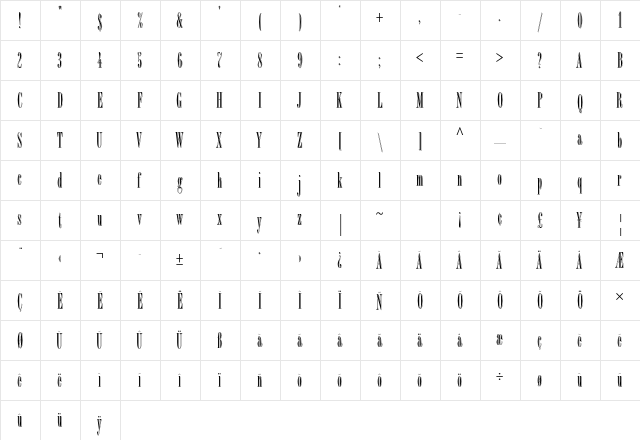
Bordeaux Display Std Regular
| Designer | David Quay |
Design Context for Bordeaux Display Std Typeface
Bordeaux Display Std is built around its visual character rather than neutral utility — its distinctive forms are designed to make an impression at display sizes.
Font Pairing: Pair with a clean neutral sans-serif for body copy to let Bordeaux Display Std's character lead without overwhelming the composition.
Pro Tip: Treat Bordeaux Display Std as the centrepiece of your typographic hierarchy. One strong heading set in a decorative face can carry an entire layout.